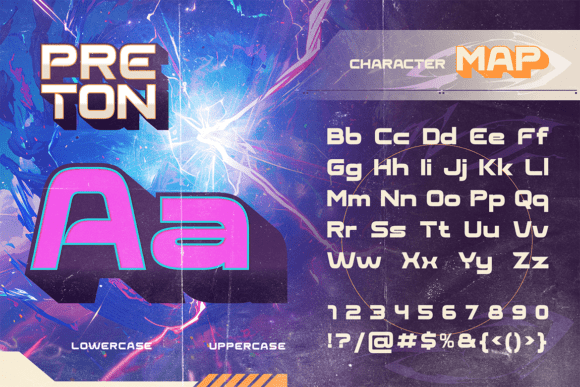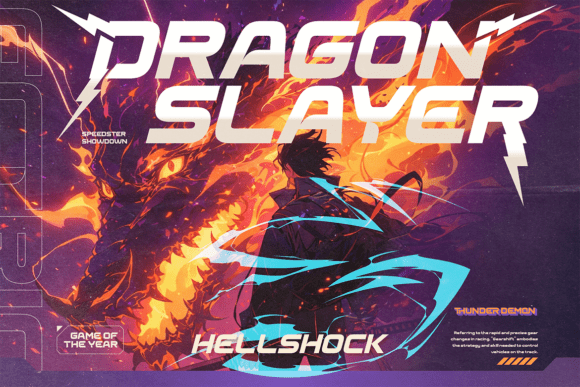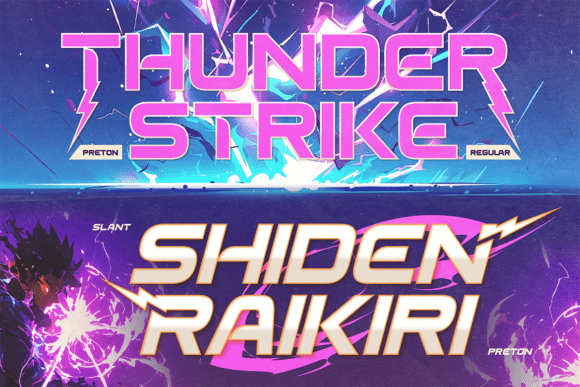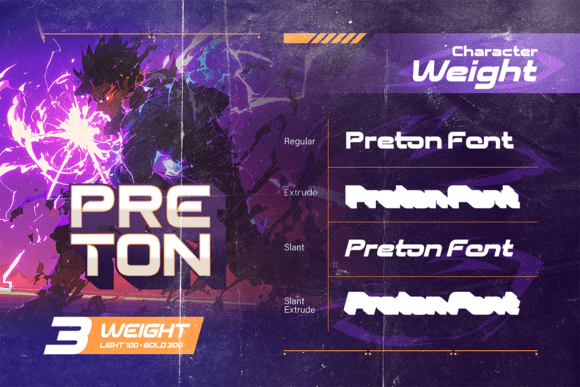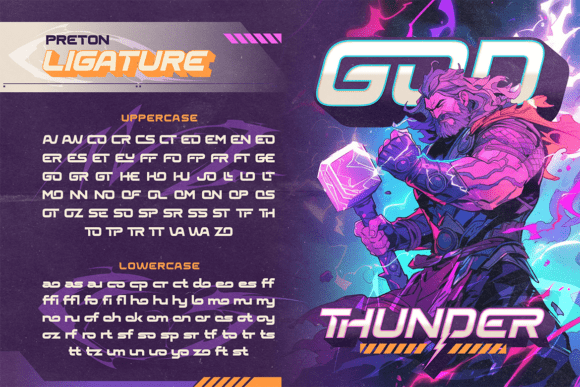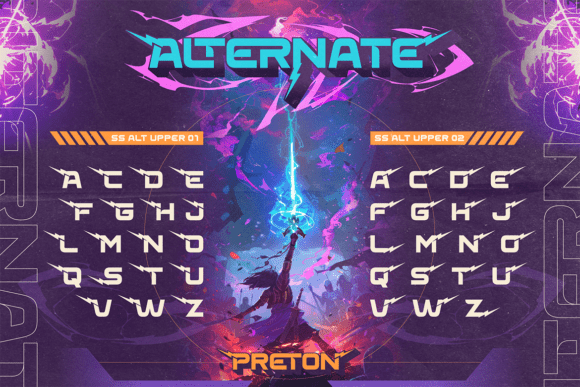
Introduction to Preton Font
Preton is a bold electrical display font built to bring high energy into your designs.
With its sharp lightning-inspired cuts and futuristic structure, this typeface delivers a powerful and dynamic look that instantly grabs attention Perfect for gaming titles, esports branding, posters, music events, tech visuals, and any project that needs a strong futuristic punch.
Key Features of Preton Font
Why Choose Preton Font?
Preton Font offers exceptional quality and versatility, making it a valuable addition to your design toolkit. Whether you’re creating for personal projects or commercial use, Preton Font delivers professional results.